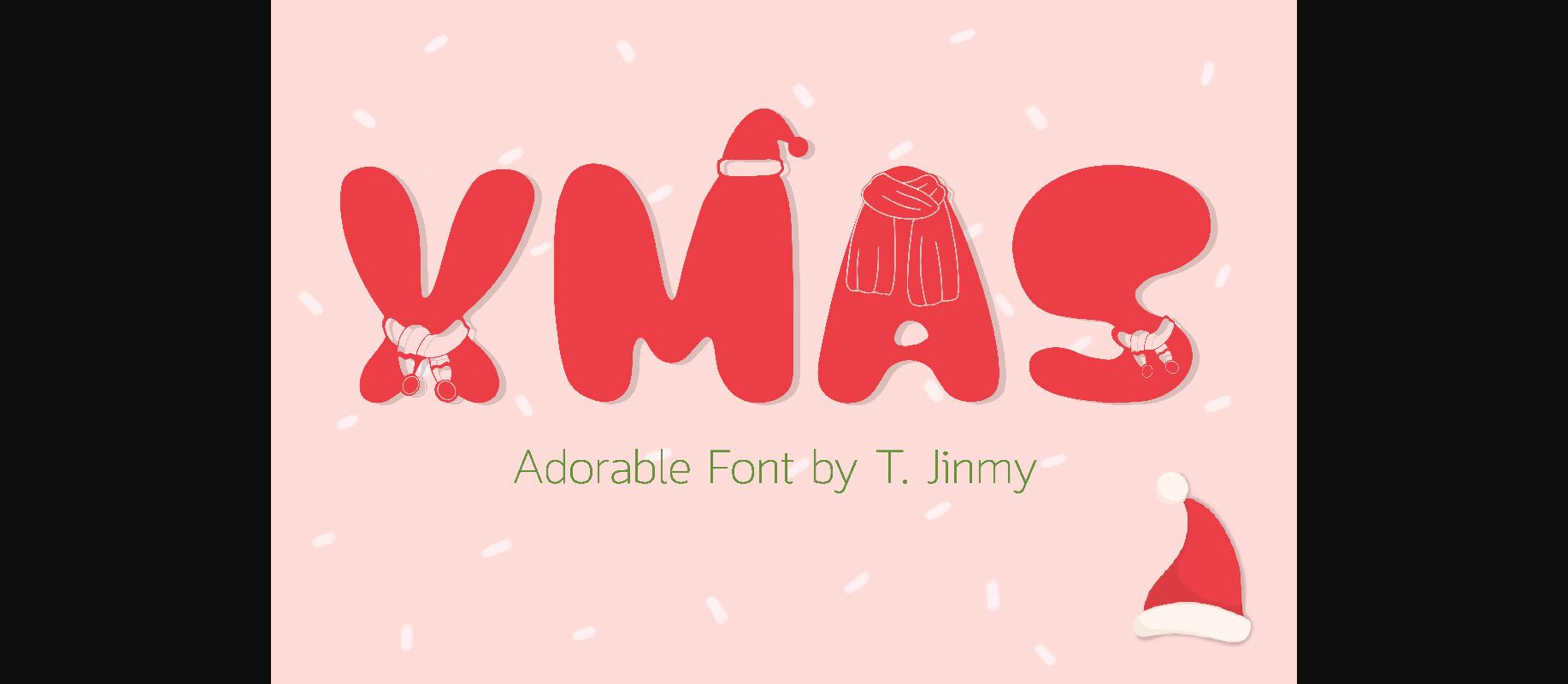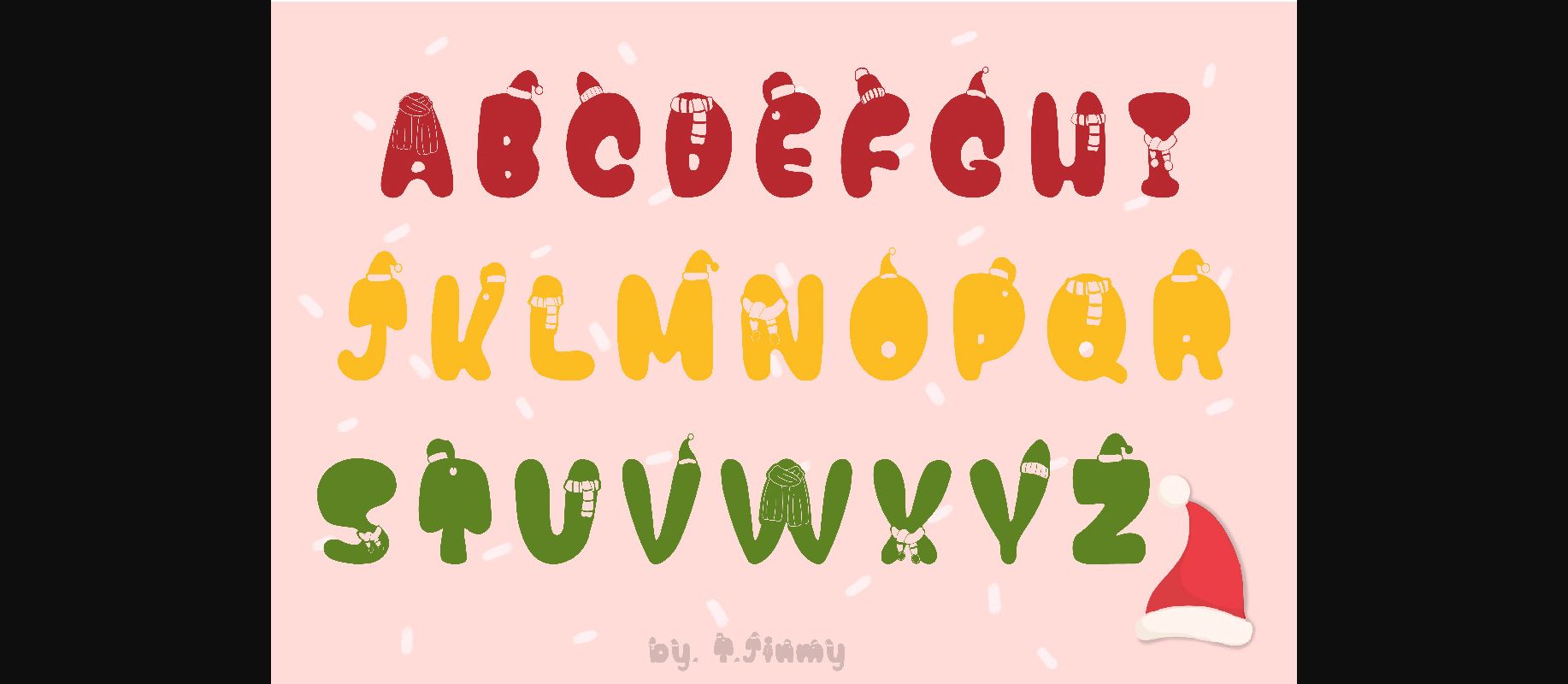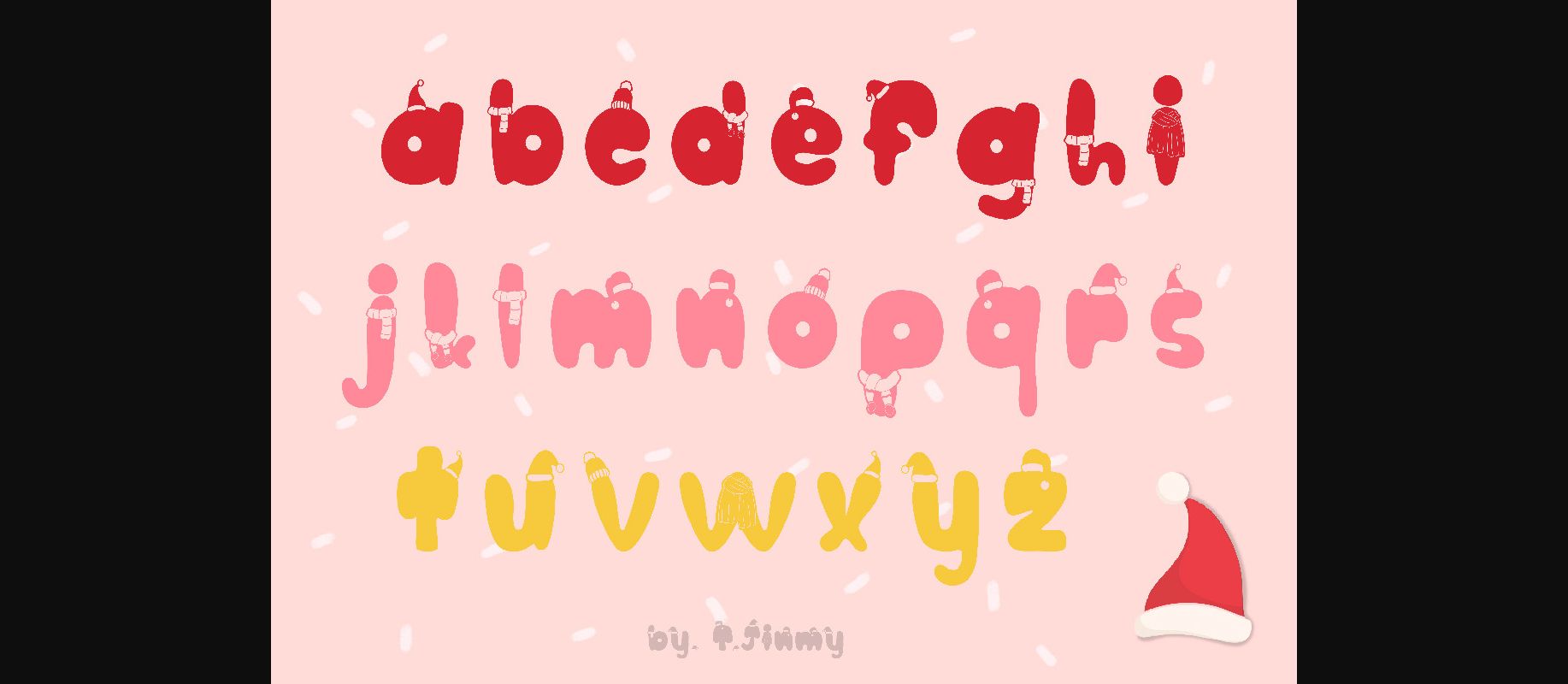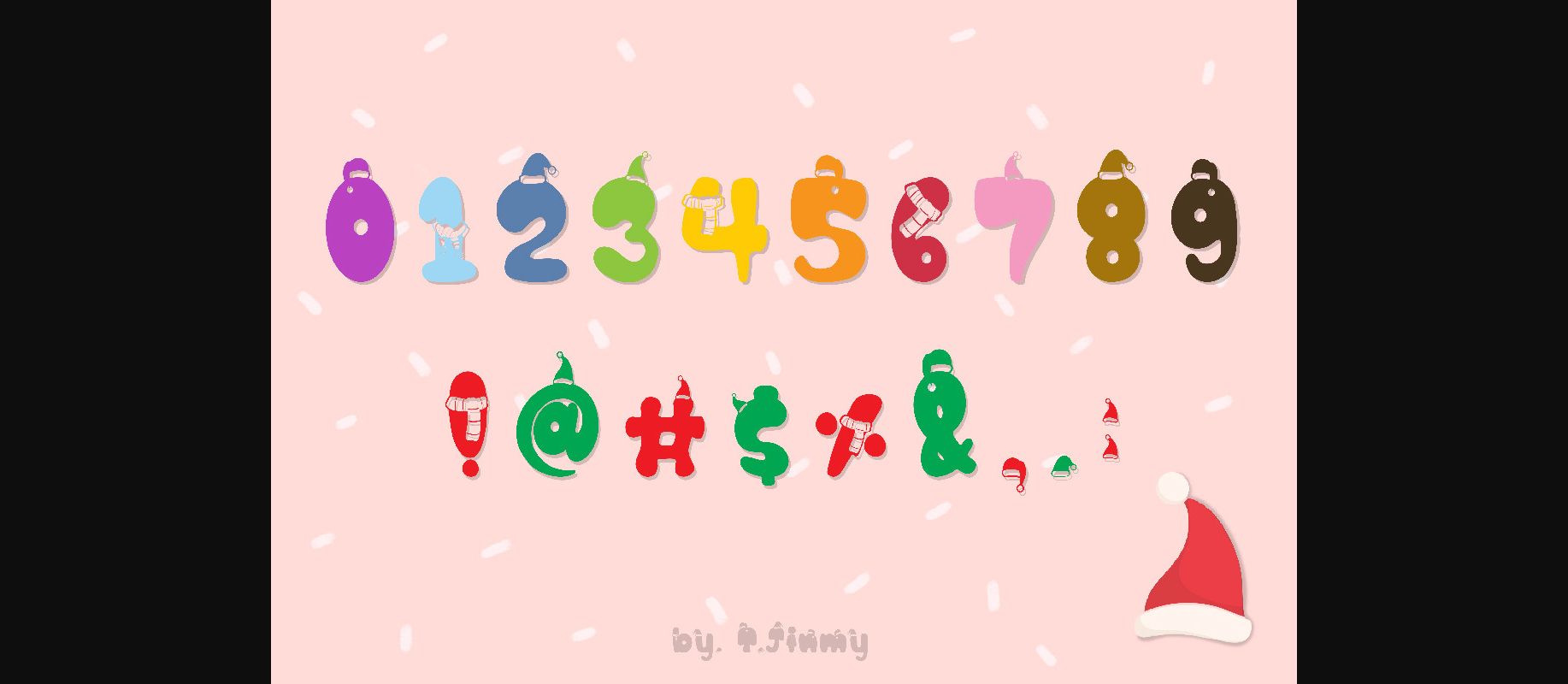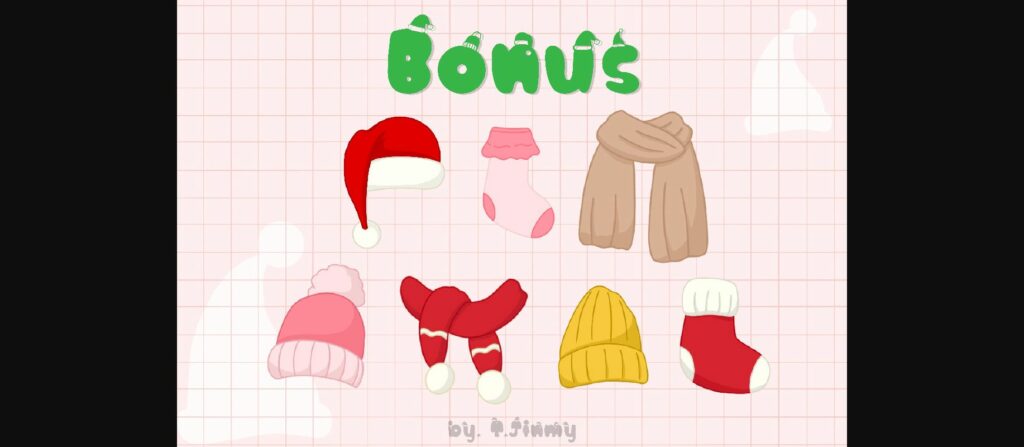
HomeDecorative FontsXmas Font Decorative Fonts Xmas Font FacebookXPinterestWhatsApp 1 of 7 ... Xmas Font Poster 2... Xmas Font Poster 3... Xmas Font Poster 4... Xmas Font Poster 5... Xmas Font Poster 6... Xmas Font Poster 7... About Xmas Font Xmas is a fun and festive decorative display font. It is the perfect fit for all of your logos, branding, social media, crafty DIY projects, and much more! DOWNLOAD NOW People also explored Draculon Soda Fountain JNL Font Happy Day Font Supermoon Font Nadoco Font Augusta Torino Shadow Lines Font Olly Vetta Font Marvel Font 260 0 TagsXmasXmas Font Previous articleBob Tool Monogram FontNext articleXmas Garland Font LEAVE A REPLY Cancel reply Comment: Please enter your comment! Name:* Please enter your name here Email:* You have entered an incorrect email address! Please enter your email address here Website: Save my name, email, and website in this browser for the next time I comment. Personal Use Free Omellia Personal Use Free Read more about this font Euphorigenic Personal Use Free Read more about this font Hashira Mt Personal Use Free Read more about this font Cadosa Personal Use Free Read more about this font BLOG Free Fonts Risk: Why Free Fonts Can Be Dangerous for Designers Free Fonts Risk: Why Free Fonts Can Be Dangerous for Designers Using free fonts is a common practice in web and graphic design. However, the... Top 10 Handwritten Fonts That Elevate Your Designs Where to Buy American Fonts Online in 2024 Transform Your Website: Elevate Your Typography with 7 Best Web Font Generators